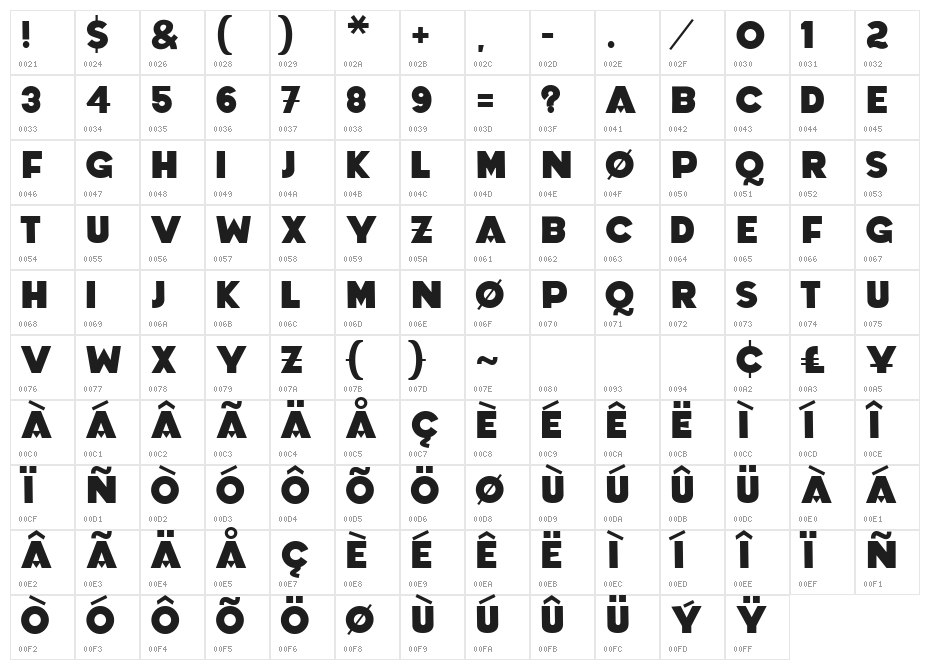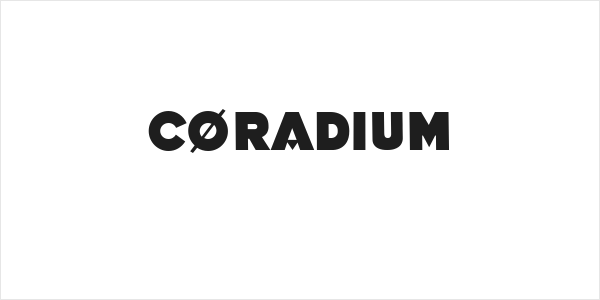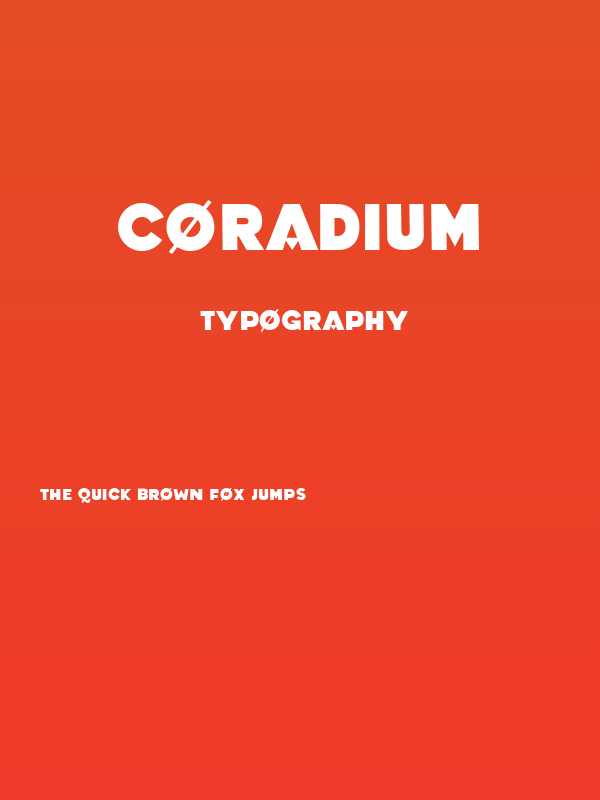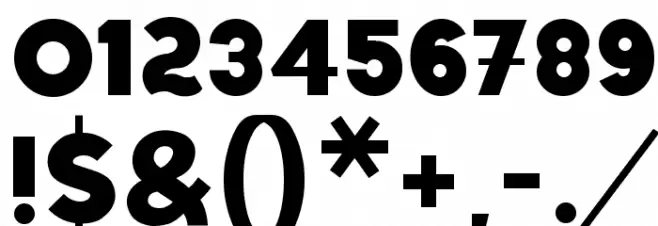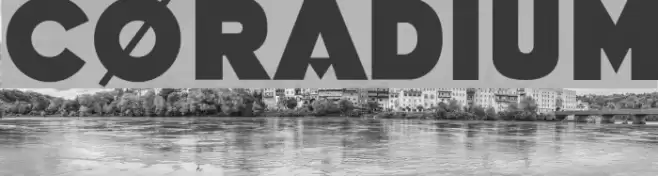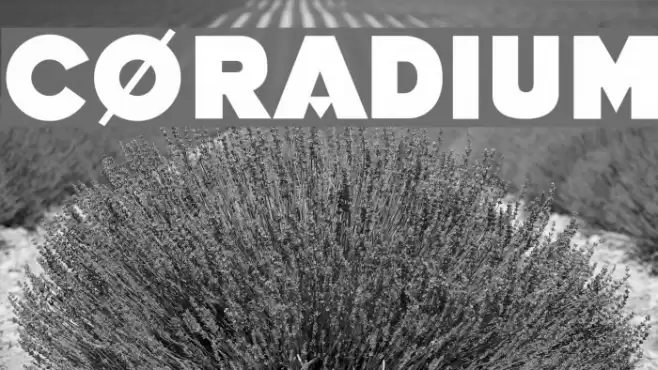
Coradium Font
Coradium Description
This font features bold, geometric letterforms with a strong presence. The uppercase letters are characterized by their thick strokes and sharp angles, creating a sense of stability and modernity. The inclusion of unique characters like the slashed zero and the Scandinavian-inspired Ø adds a distinctive flair. The numerals are equally bold, maintaining the font's consistent weight and style. Special characters are designed with the same boldness, ensuring uniformity across all glyphs. This font is ideal for making a strong visual impact, suitable for headlines and branding.